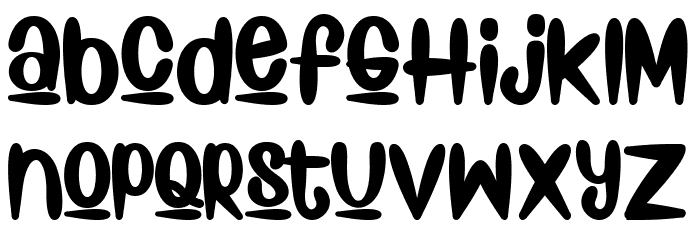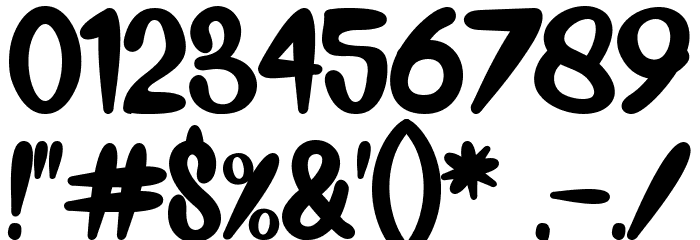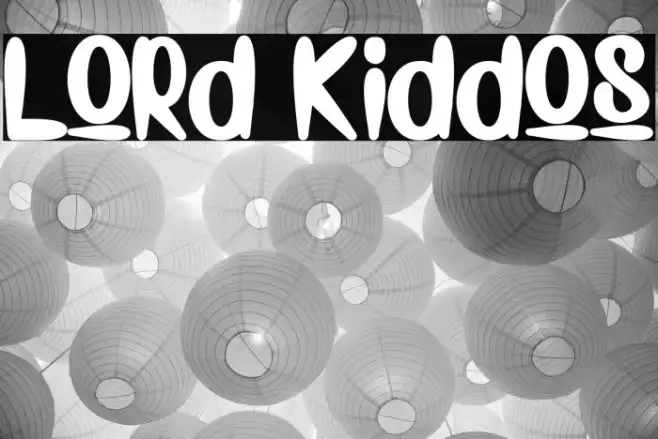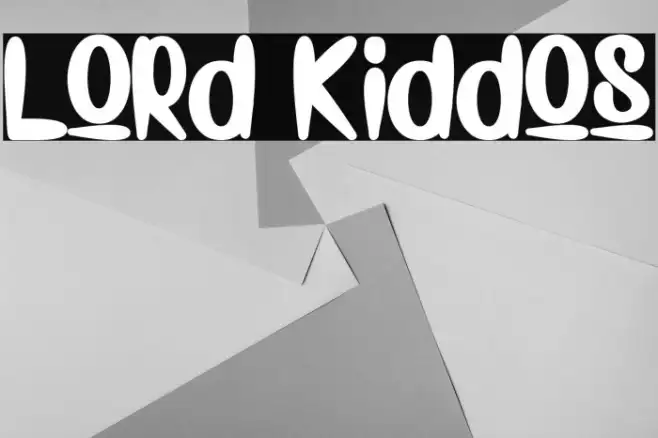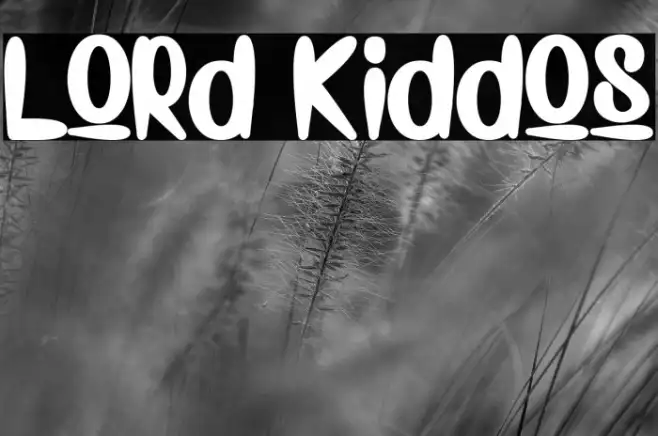
Lord Kiddos Font
This playful and bold font features thick, rounded letters with a whimsical touch, making it ideal for children's projects or fun, informal designs. The characters are consistently bold, with a slightly irregular baseline that adds to its charm. The uppercase and lowercase letters maintain a cohesive style, while the numerals and special characters are equally expressive. Its boldness ensures high visibility, making it suitable for eye-catching headlines or titles.
A playful, bold font with thick, rounded characters and a whimsical style.
- Font: Lord Kiddos
- Proposed Projects: Ideal for children's books, playful branding, party invitations, and fun posters.
- Overall Style: Playful